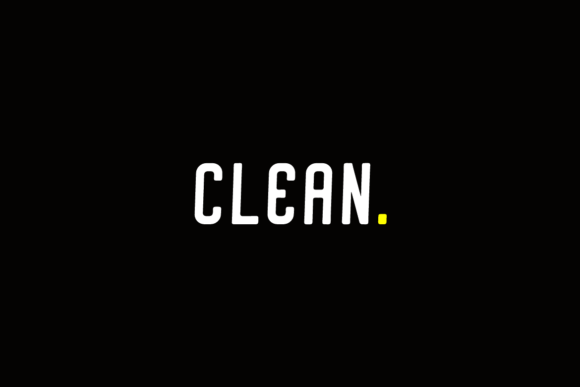
Dannquen Font: The Ultimate Choice for Bold and Stylish Headlines
In the world of typography, fonts play a crucial role in conveying messages and making a lasting impression. When it comes to creating strong, eye-catching headlines, Dannquen Font is the perfect choice. This bold and stylish display font is designed to make a statement, and its modern design makes it ideal for a wide range of applications, from posters and logos to digital media and branding.
Key Features of Dannquen Font
- Bold and Stylish: Dannquen Font is characterized by its thick letters and modern design, making it perfect for creating strong, eye-catching headlines.
- Display Font: Dannquen is a display font, designed to be used in large sizes, making it ideal for posters, logos, and other applications where a bold statement is needed.
- Modern Design: The font features a modern design, with clean lines and a sleek aesthetic, making it perfect for contemporary brands and designs.
- High Versatility: Dannquen Font can be used in a wide range of applications, from print to digital media, making it a versatile choice for designers.
Uses of Dannquen Font
Dannquen Font is perfect for a wide range of applications, including:
- Posters: Dannquen Font is ideal for creating eye-catching posters, with its bold and stylish design making it perfect for grabbing attention.
- Logos: The font’s modern design and bold letters make it a great choice for logos, helping to create a strong brand identity.
- Headlines: Dannquen Font is perfect for creating strong, eye-catching headlines, making it ideal for use in newspapers, magazines, and online publications.
- Branding: The font’s versatility and modern design make it a great choice for branding, helping to create a consistent and professional image.
- Digital Media: Dannquen Font can be used in digital media, such as social media graphics, website headers, and more.
Benefits of Using Dannquen Font
There are several benefits to using Dannquen Font, including:
- Increased Visibility: Dannquen Font’s bold and stylish design makes it perfect for grabbing attention and increasing visibility.
- Improved Brand Identity: The font’s modern design and versatility make it a great choice for creating a strong brand identity.
- Enhanced Creativity: Dannquen Font’s unique design and bold letters make it perfect for creative projects, allowing designers to push the boundaries of their designs.
- Easy to Read: Despite its bold design, Dannquen Font is easy to read, making it perfect for use in a wide range of applications.
Comparison with Other Fonts
When it comes to bold and stylish display fonts, there are several options available. However, Dannquen Font stands out from the crowd, with its unique design and modern aesthetic. Here’s a comparison with other popular fonts:
- Arial Black: While Arial Black is a bold font, it lacks the modern design and stylish aesthetic of Dannquen Font.
- Impact: Impact is a classic bold font, but it can appear dated compared to Dannquen Font’s modern design.
- Helvetica Bold: Helvetica Bold is a popular font, but it doesn’t have the same level of style and sophistication as Dannquen Font.
Tips for Using Dannquen Font
Here are some tips for using Dannquen Font effectively:
- Use it Sparingly: Dannquen Font is a bold font, so use it sparingly to avoid overwhelming the reader.
- Pair it with a Simple Font: Pair Dannquen Font with a simple font to create contrast and make your design more readable.
- Experiment with Colors: Dannquen Font looks great in a wide range of colors, so experiment with different colors to find the one that works best for your design.
- Consider the Context: Consider the context in which you’ll be using Dannquen Font, and adjust the size and style accordingly.
In conclusion, Dannquen Font is a bold and stylish display font that’s perfect for making strong, eye-catching headlines. Its modern design, versatility, and ease of use make it a great choice for a wide range of applications, from posters and logos to digital media and branding. With its unique design and bold letters, Dannquen Font is sure to make a statement and leave a lasting impression.